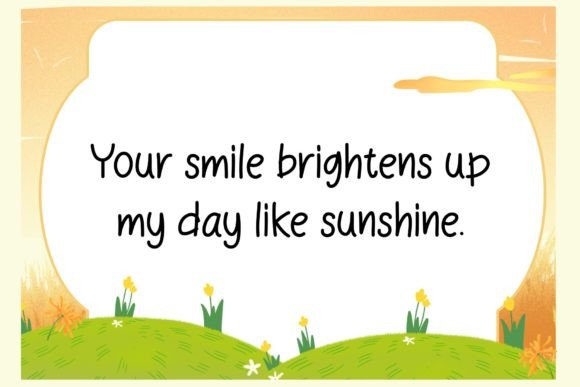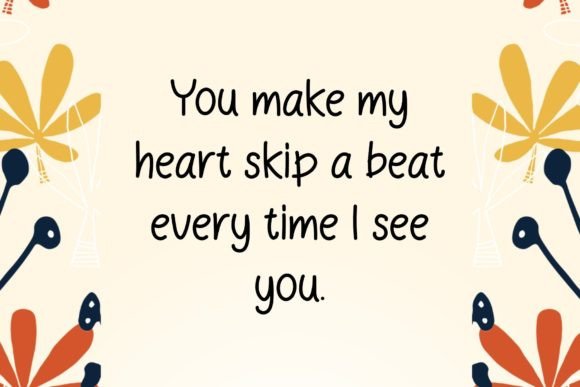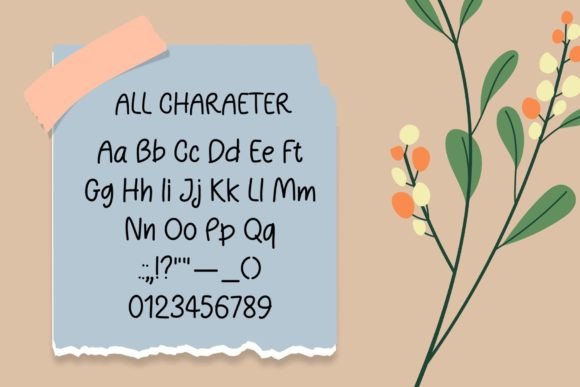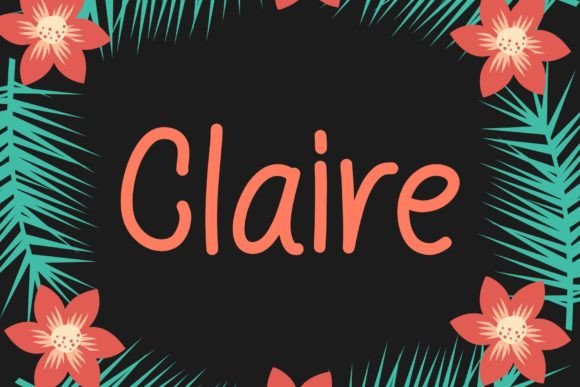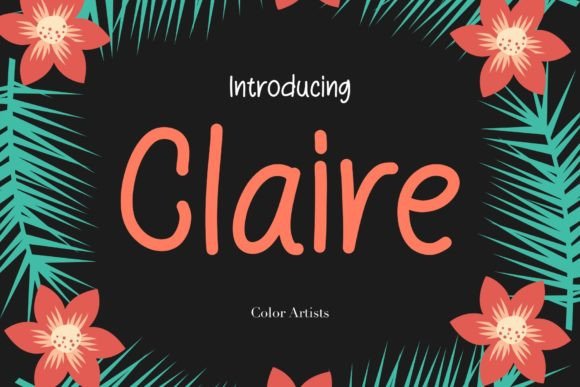
Introducing Claire Font: Elegant, Timeless, and Sophisticated
Are you looking for a font that exudes elegance and sophistication? Look no further than Claire Font. With its sleek and graceful design, Claire Font is the perfect choice for projects that require a touch of class and refinement. In this article, we’ll take a closer look at the features and benefits of Claire Font, and explore how it can elevate your design projects to the next level.
A Brief Overview of Claire Font
Claire Font is a beautifully crafted typeface that is designed to convey a sense of luxury and sophistication. Its elegant lines and curves make it perfect for use in high-end branding, advertising, and editorial design. Whether you’re working on a fashion magazine, a luxury product catalog, or a corporate website, Claire Font is sure to make a lasting impression.
Key Features of Claire Font
So what sets Claire Font apart from other fonts? Here are some of its key features:
• Elegant and Refined Design: Claire Font features a sleek and sophisticated design that is perfect for projects that require a touch of class and refinement.
• Highly Legible: Despite its elegant design, Claire Font is highly legible, even at small sizes. This makes it perfect for use in body text, as well as headlines and titles.
• Versatile: Claire Font is a versatile font that can be used in a wide range of design projects, from fashion and beauty to finance and corporate branding.
• Timeless: Unlike trendy fonts that quickly go out of style, Claire Font is a timeless typeface that will remain elegant and sophisticated for years to come.
Benefits of Using Claire Font
So why should you choose Claire Font for your design projects? Here are some of the benefits of using this elegant typeface:
• Adds a Touch of Class and Sophistication: Claire Font is the perfect way to add a touch of elegance and refinement to your design projects.
• Enhances Readability: With its highly legible design, Claire Font can help to enhance the readability of your text, making it easier for readers to engage with your content.
• Versatile and Flexible: Claire Font can be used in a wide range of design projects, from print and digital media to packaging and branding.
• Timeless and Classic: Unlike trendy fonts that quickly go out of style, Claire Font is a timeless typeface that will remain elegant and sophisticated for years to come.
How to Use Claire Font in Your Design Projects
Using Claire Font in your design projects is easy. Here are some tips to get you started:
• Pair it with Other Fonts: Claire Font pairs perfectly with other fonts, such as sans-serif fonts like Arial or Helvetica. Experiment with different font combinations to create a unique look.
• Use it for Headlines and Titles: Claire Font is perfect for use in headlines and titles, where its elegant design can really shine.
• Experiment with Different Sizes and Colors: Don’t be afraid to experiment with different sizes and colors of Claire Font to create a unique look that suits your design project.
In conclusion, Claire Font is a beautifully crafted typeface that is perfect for designers and crafters looking for a touch of elegance and sophistication in their design projects. With its sleek and refined design, highly legible text, and versatile and flexible nature, Claire Font is the perfect choice for a wide range of design projects. Whether you’re working on a fashion magazine, a luxury product catalog, or a corporate website, Claire Font is sure to make a lasting impression.